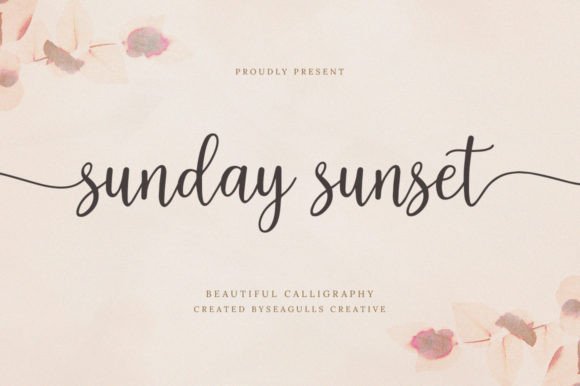
Introducing Sunday Sunset Font, an enchanting script font that captures the warmth and glow of a golden sunset. Its graceful strokes, reminiscent of a handwritten letter, lend an air of elegance and charm to any design.
Immerse yourself in the beauty of Sunday Sunset, a calligraphy font that exudes a romantic and timeless aesthetic. Its flowing lines and elegant curves add a touch of sophistication to your creative projects, making them truly captivating.
With Sunday Sunset, you can transform ordinary words into stunning works of art. Its carefully crafted glyphs and swashes provide endless possibilities for customization, allowing you to create designs that reflect your unique style and personality.
Step into a world of creativity with Sunday Sunset, the perfect font for branding, letters, stationery, and wedding invitations. Its versatility extends to a wide range of projects, making it an indispensable tool for designers and artists alike.
Unlock the full potential of Sunday Sunset, a PUA-encoded font that grants you effortless access to all its glyphs and swashes. Unleash your imagination and explore the limitless possibilities it offers, crafting designs that are both visually stunning and emotionally resonant.